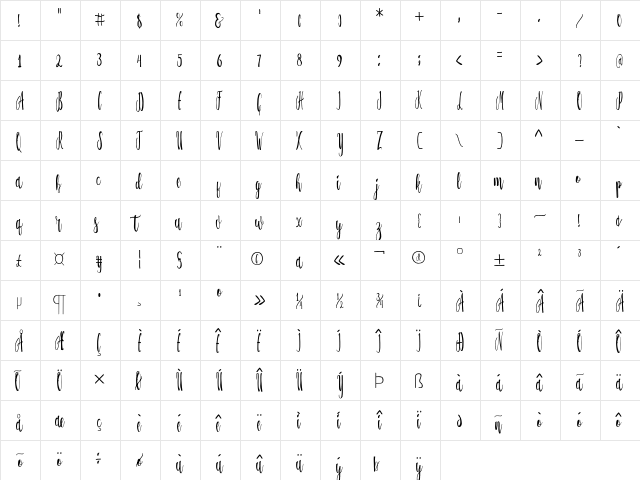
Flalkner Regular
Regular · syupoe kreatif  ·
Design Context for Flalkner Typeface
Flalkner is a composed and adaptable typeface that performs quietly and consistently across a wide range of design contexts.